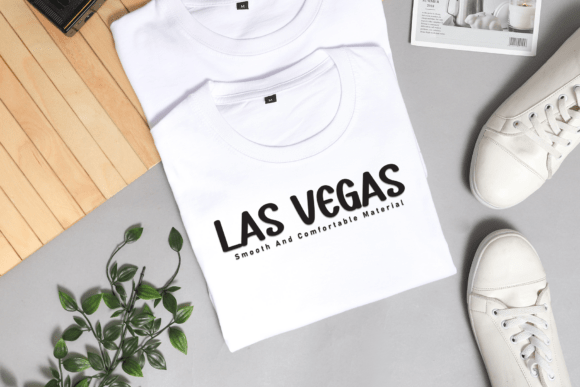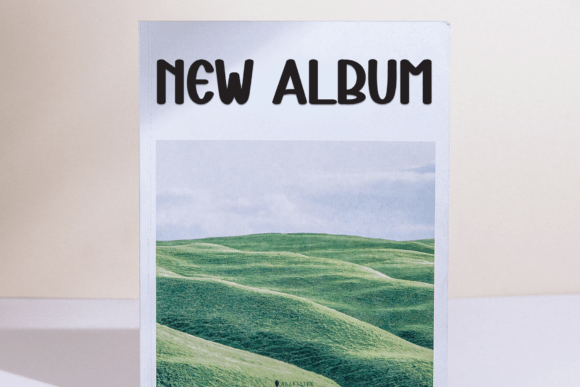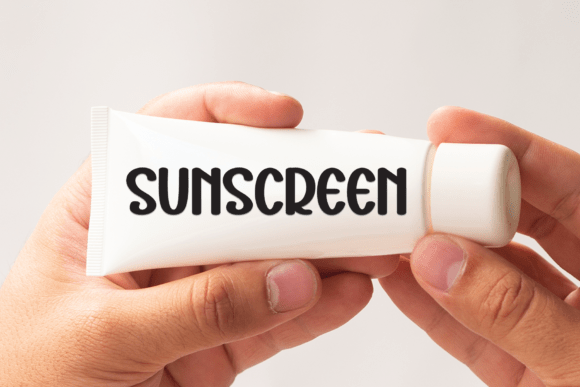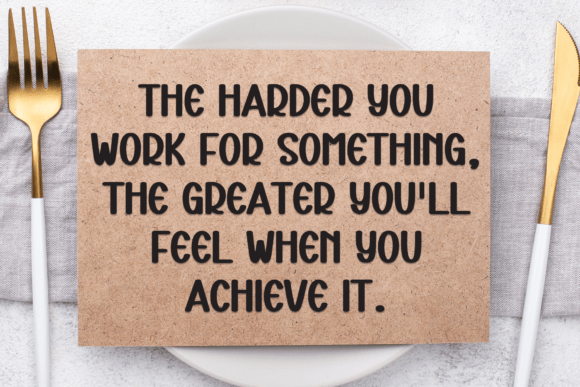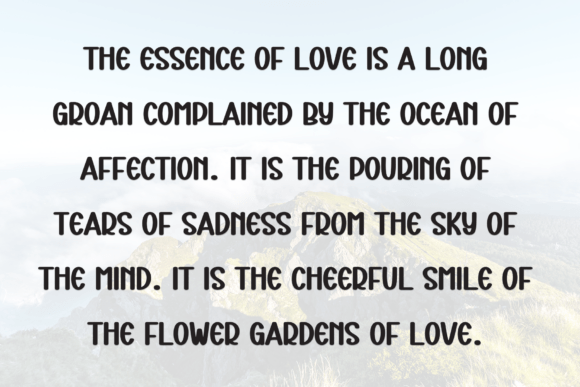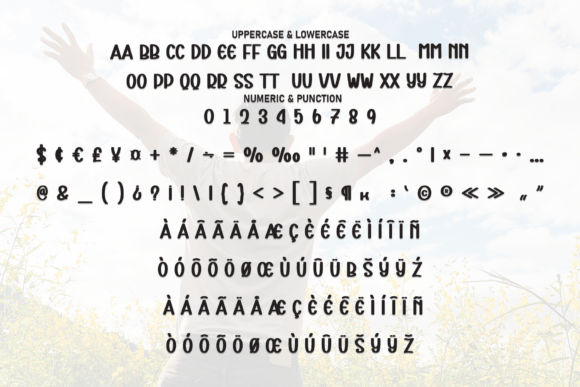
Have you ever stared at a blank page, feeling stuck and unsure of how to bring your idea to life? I know I have. That’s when I turn to my trusty font library, searching for the perfect combination of style and readability. And that’s exactly what I found with the Bright Sunday Font.
Designed to evoke warmth and clarity, this casual display font is perfect for branding, headlines, and everyday designs. With its clean structure and approachable style, Bright Sunday Font is sure to make every message feel genuine and inviting. Whether you’re a seasoned designer or just starting out, this font is a valuable addition to your toolkit, offering a balanced mix of readability and charm.
So why settle for a font that’s just “good enough” when you can have a font that truly shines? Bright Sunday Font is the perfect choice for designers who want to make a lasting impression and bring their projects to life with style and sophistication.
Bright Sunday Font Key Features
- Font Family: Bright Sunday is a sans-serif font family, designed to convey a sense of modernity and friendliness.
- Unique Characteristics: Bright Sunday features a distinctive rounded edge and subtle rounded corners, giving it a friendly and approachable feel.
Bright Sunday Font Review
Overall, I’m really enjoying the Bright Sunday Font. ✨ The font has a unique, modern feel that’s perfect for designing bright and cheerful projects. It’s especially great for titles, headings, and other text elements where you want to add a pop of color.
The font has a clean and minimalistic design, making it easy to read and understand. ✨ The OpenType features are also well-implemented, allowing for some nice flourishes and extra details. I’ve had a lot of fun experimenting with the font’s various styles and combinations.
- ⚠️ Limited language support: I’ve noticed that the font doesn’t support certain languages, which can be a problem if you’re designing for a global audience.
- ⚠️ Not ideal for body text: While the font is great for titles and headings, it’s not the most readable font for large blocks of body text. You may want to pair it with a more traditional font for the main content.
Overall, I’d say the Bright Sunday Font is a great addition to any designer’s toolkit. It’s perfect for projects that need a bit of flair and personality. Just be aware of its limitations and use it in context to get the best results.
Use Bright Sunday Font for headings and titles to add a touch of elegance and sophistication.
Pair Bright Sunday Font with other fonts to create a unique and visually appealing design.
Experiment with different font sizes and colors to create a striking visual effect.
Use Bright Sunday Font for:
Photography and design portfolios
Any design project that requires a touch of elegance and sophistication